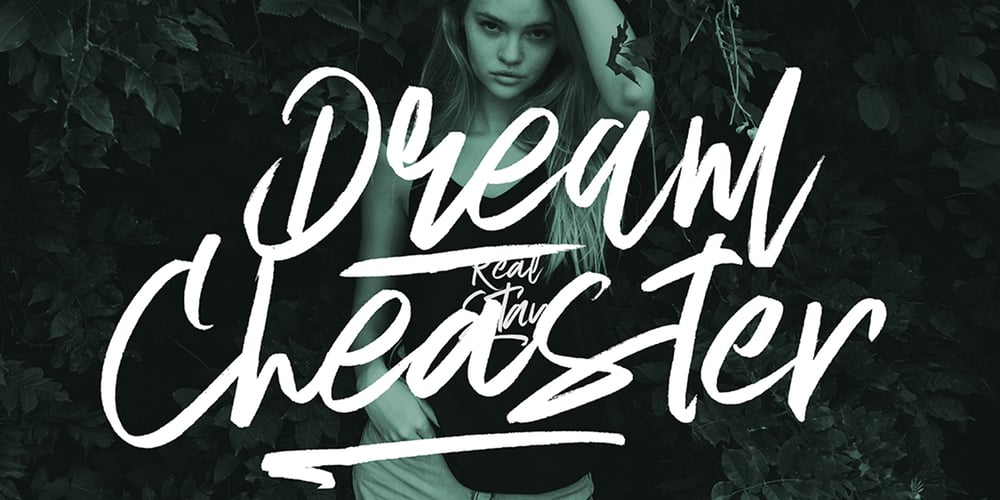
Formabbis
Formabbis font
Formabbis Font Family was designed by Akmal Yusar and published by Picatype. Formabbis contains 2 styles and family package options. Formabbis is a set of 2 handmade pen markers, designed to be combined perfectly and allows you to create amazing handwriting quickly and easily. Also includes a bonus swash set, ideal for giving your text the final touch of tactics! Formabbis comes with upper and lower case characters, large sets of glyph punctuation marks, numbers, and supports international languages. Alternative styles for some lowercase key characters are also available. To enable OpenType Stylistic alternates, you need a program that supports OpenType features such as Adobe Illustrator CS, Adobe Indesign & CorelDraw X6-X7, Microsoft Word 2010 or later. How to access all alternative characters, using Windows Character Map with Photoshop: https://www.youtube.com/watch?v=Go9vacoYmBw How to access all alternative characters using Adobe Illustrator: https://www.youtube.com/watch?v=XzwjMkbB-wQ Formabbis Script is encoded with Unicode PUA, which allows full access to all additional characters without having special design software. Mac users can use Font Book, and Windows users can use Character Map to view and copy one of the extra characters to paste into your favorite text editor / application. Thank you very much for searching and tell me if you have questions.